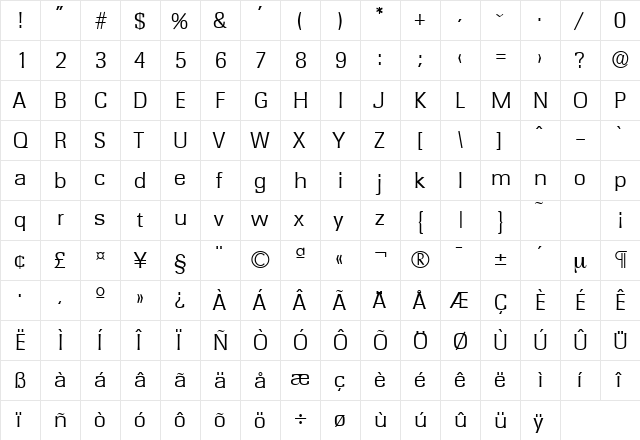
Rochester-Serial-Light Regular
Design Context for Rochester-Serial-Light Typeface
Rochester-Serial-Light offers clean, dependable letterforms without strong stylistic allegiance, making it a practical choice for designers who need flexibility. The delicate stroke weight brings airiness and refinement to layouts.